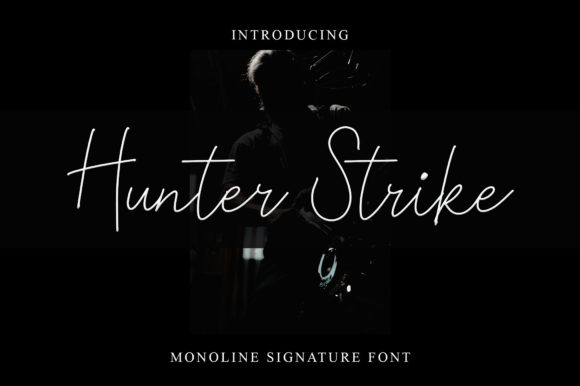
Introducing Hunter Strike Font, an exquisite calligraphy script font with a personality that exudes elegance and charm. Its carefully crafted curves and swashes effortlessly capture the essence of sophistication, making it an exceptional choice for designers and creatives seeking to elevate their projects.
Adorned with a graceful baseline and stunning letterforms, Hunter Strike possesses an unmatched beauty that instantly adds a touch of enchantment to any design. Whether you're crafting wedding invitations, designing logos, creating social media graphics, or expressing your creativity in other ways, this font will leave an indelible mark.
Experience the allure of Hunter Strike's whimsical style, where each character dances across the page like a delicate brushstroke. Its intricate details and subtle variations create a visual symphony that captivates the imagination. Prepare to be mesmerized as your words transform into works of art, leaving a lasting impression on all who behold them.
With its versatility, Hunter Strike effortlessly adapts to a wide range of design aesthetics. Whether you prefer a classic, vintage, or modern style, this font seamlessly blends in, adding a touch of timeless elegance to every project. Its ability to effortlessly enhance any design makes it an essential tool for any creative toolbox.
Unleash your creativity and embark on a journey of self-expression with Hunter Strike Font. Experience the joy of transforming ordinary words into extraordinary masterpieces, leaving your audience spellbound and inspired. Embrace the power of beautiful typography and elevate your designs to new heights.